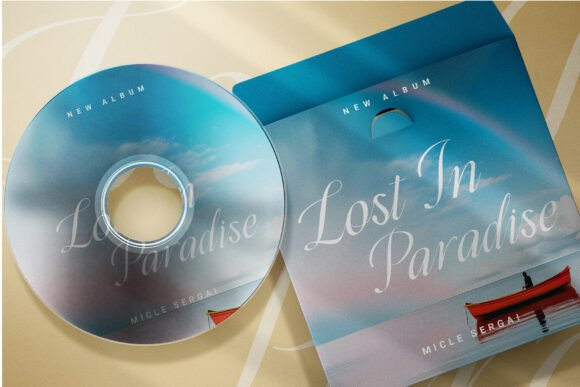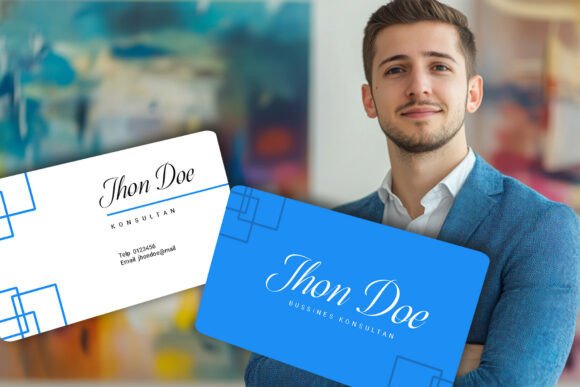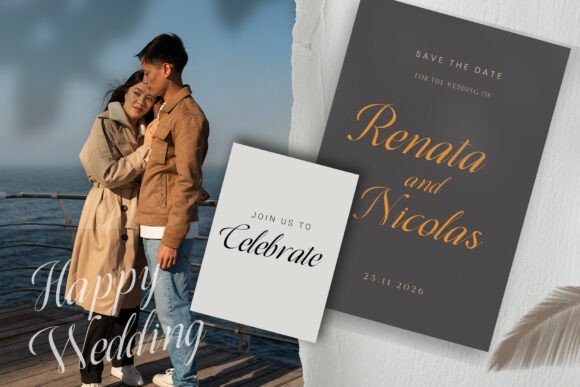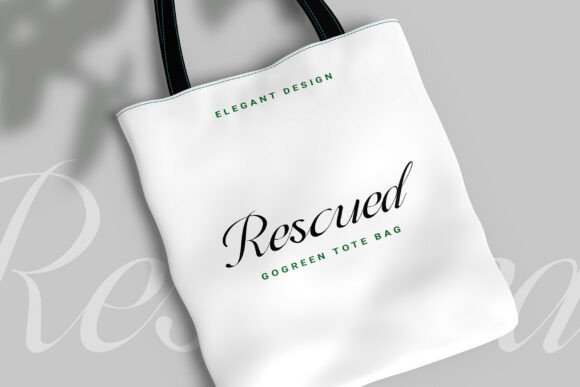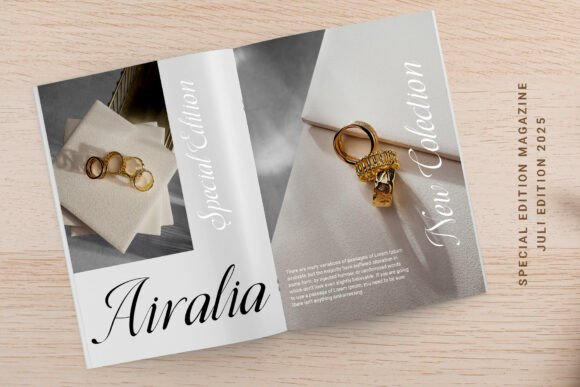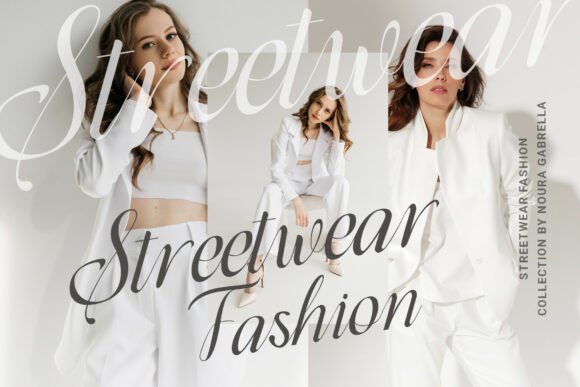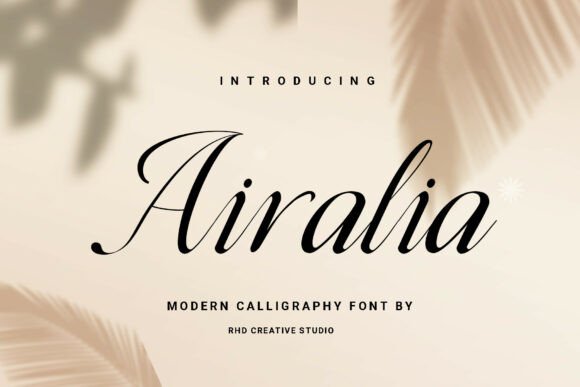
The Airalia Font: A Delicate and Elegant Design Companion
I’ll never forget the design project that led me to discover the Airalia font. I was working on a branding project for a luxury wedding planner, and I needed a font that exuded elegance and sophistication. After hours of scouring font websites and trying out different options, I stumbled upon Airalia. Its delicate and elegant handwritten style immediately caught my eye, and I knew I had found the perfect fit.
As a designer, I’m always on the lookout for fonts that can elevate my work. Here’s what I love about Airalia:
- ✨ Delicate and elegant handwritten style that’s perfect for luxury brands
- ✅ Well-balanced letters that make it easy to read and recognize
- 💫 Incredibly versatile style that works for both headings and body text
- 🎨 Beautifully crafted to add a touch of sophistication to any design
Of course, no font is perfect, and Airalia has a few quirks:
- 🤔 Some users may find the font a bit too delicate for certain design applications
Exploring OpenType Features: Glyphs and Stylistic Alternates
The Story Behind Airalia
Airalia was designed by a team of typographers who wanted to create a font that would evoke a sense of elegance and sophistication. Inspired by traditional calligraphy and handwriting, Airalia is a beautiful example of modern typography.
| What is Airalia font? | Airalia is a delicate and elegant handwritten font that’s perfect for luxury brands and designs. |
| Is Airalia suitable for body text? | Yes, Airalia is suitable for body text, but it may be a bit too delicate for certain design applications. |
| Is Airalia available in different weights? | Yes, Airalia is available in different weights, including regular, bold, and italic. |